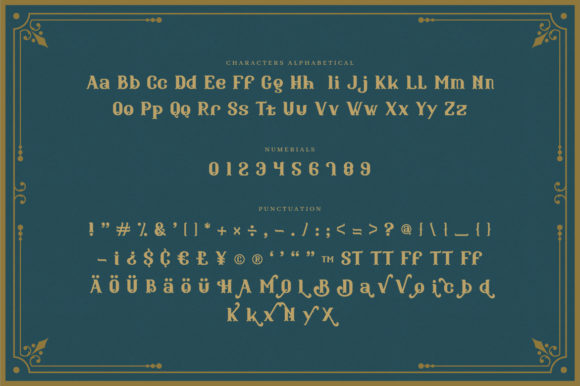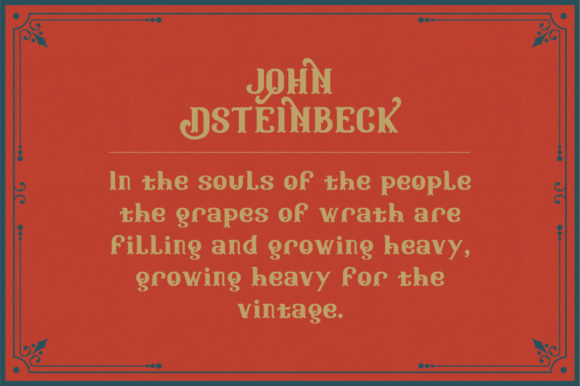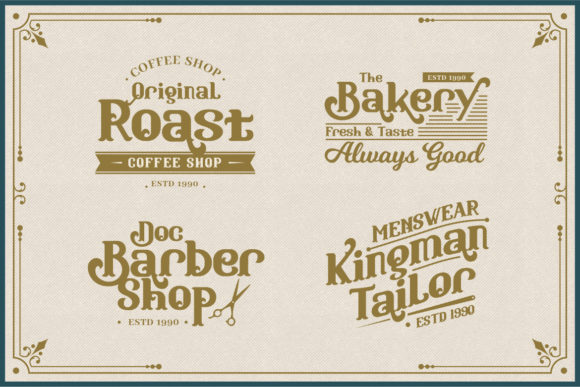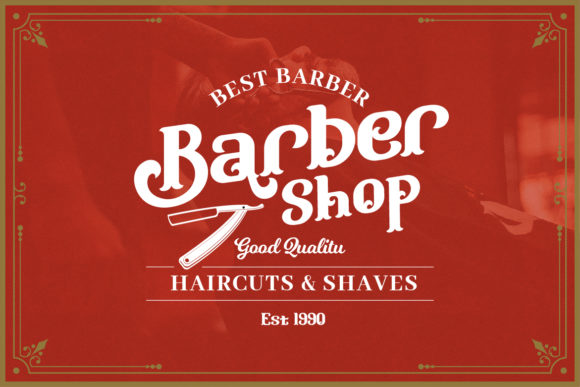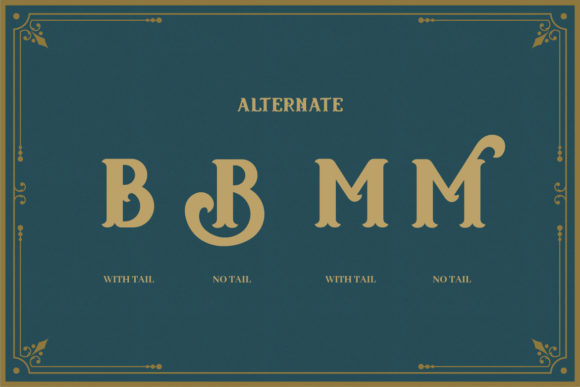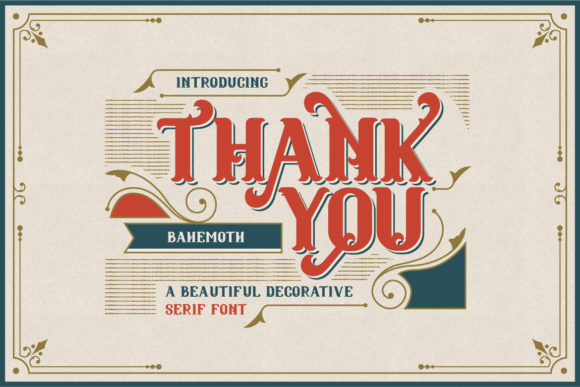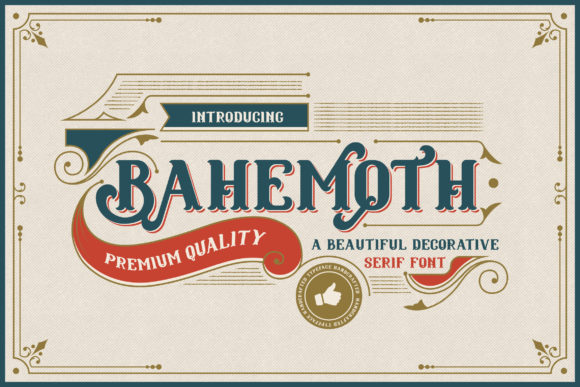
Discover the Power of Bahemoth Font: Elevate Your Design with its Unique Serif Style
Are you tired of using the same old fonts for your designs? Look no further than Bahemoth Font, a game-changing serif font that’s about to take your creations to the next level. With its incredibly versatile style, Bahemoth Font is perfect for designers and crafters who want to add a touch of elegance and sophistication to their work.
What Makes Bahemoth Font So Special?
Bahemoth Font is a unique and interesting serif font that’s designed to capture attention and inspire creativity. Its distinctive style is characterized by elegant lines, refined curves, and a sophisticated flair that’s perfect for a wide range of design applications. Whether you’re creating stationery art, social media posts, or any other type of visual content, Bahemoth Font is the perfect choice.
The Benefits of Using Bahemoth Font
So, what makes Bahemoth Font so versatile and effective? Here are just a few benefits of using this amazing font:
- Elegance and Sophistication: Bahemoth Font exudes elegance and sophistication, making it perfect for designs that require a touch of refinement and luxury.
- Versatility: Bahemoth Font is incredibly versatile, and can be used for a wide range of design applications, from stationery art to social media posts, and more.
- Easy to Read: Despite its elegant style, Bahemoth Font is easy to read, making it perfect for designs that require a clear and concise message.
- Unique and Memorable: Bahemoth Font is a unique and memorable font that will help your designs stand out from the crowd and leave a lasting impression.
How to Use Bahemoth Font in Your Designs
Bahemoth Font is incredibly easy to use, and can be incorporated into your designs in a variety of ways. Here are a few ideas to get you started:
- Stationery Art: Use Bahemoth Font to create beautiful stationery art, including greeting cards, invitations, and more.
- Social Media Posts: Add a touch of elegance and sophistication to your social media posts with Bahemoth Font.
- Logos and Branding: Use Bahemoth Font to create a unique and memorable logo or branding identity for your business or organization.
- Advertising and Marketing: Bahemoth Font is perfect for advertising and marketing materials, including brochures, flyers, and more.
Tips and Tricks for Getting the Most Out of Bahemoth Font
Here are a few tips and tricks for getting the most out of Bahemoth Font:
- Pair with Other Fonts: Bahemoth Font pairs well with other fonts, so don’t be afraid to try pairing it with a sans-serif font for added contrast and interest.
- Use it for Headings and Titles: Bahemoth Font is perfect for headings and titles, where its elegant style can really shine.
| Font Name | Bahemoth Font |
| Author | naulicrea |
In conclusion, Bahemoth Font is a unique and interesting serif font that’s perfect for designers and crafters who want to add a touch of elegance and sophistication to their work. With its incredibly versatile style, Bahemoth Font is perfect for a wide range of design applications, from stationery art to social media posts, and more. So why wait? Fall in love with Bahemoth Font today, and take your designs to the next level!
- Unique and interesting serif font
- Incredibly versatile style
- Elegant and sophisticated
- Easy to read
- Perfect for stationery art, social media posts, logos, and more